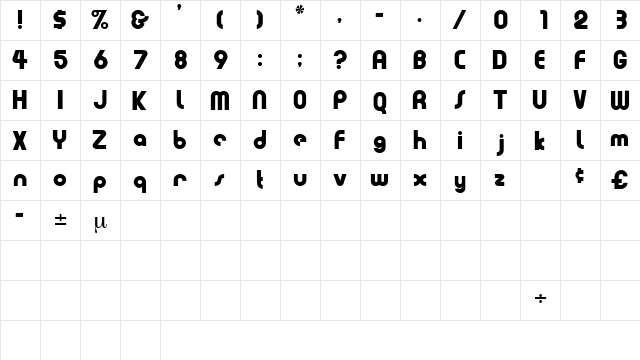
EviaDisplaySSK Regular
Design Context for EviaDisplaySSK Typeface
EviaDisplaySSK is built around its visual character rather than neutral utility — its distinctive forms are designed to make an impression at display sizes.
Font Pairing: Pair with a clean neutral sans-serif for body copy to let EviaDisplaySSK's character lead without overwhelming the composition.
Pro Tip: Use EviaDisplaySSK exclusively at display sizes — it was designed to be seen, not read at length. Let a neutral companion handle body copy.